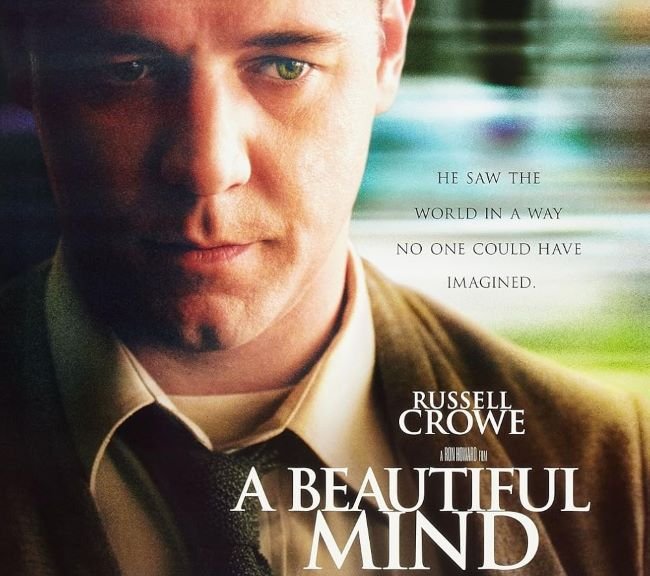
A Beautiful Mind font approaches its subject with the same quiet intelligence the film brings to John Nash’s extraordinary story — a classical, prestige serif that speaks with authority but never raises its voice, the typographic equivalent of a man who solves equations others can’t even read while ordering his coffee. Ron Howard’s 2001 film leans on the Trajan-influenced roman tradition for its poster and title treatment: letterforms with the sharp, lapidary precision of ancient inscriptions that Hollywood adopted in the 1990s as the default visual code for importance, intelligence, and Academy Award contention. Two freely available alternatives reconstruct that scholarly serif gravitas: Alternative 1 and Alternative 2.